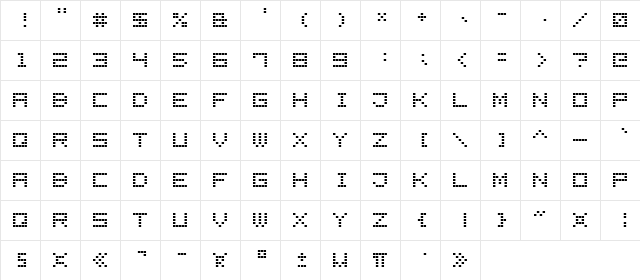
LED Display7 Regular
| Foundry | Style-7 |
| Designer | Sizenko Alexander |
Design Context for LED Display7 Typeface
LED Display7 brings ornamental detail and strong personality to headlines and identities, where visual impact matters more than quiet functionality.
Font Pairing: Pair with a clean neutral sans-serif for body copy to let LED Display7's character lead without overwhelming the composition.
Pro Tip: Use LED Display7 exclusively at display sizes — it was designed to be seen, not read at length. Let a neutral companion handle body copy.